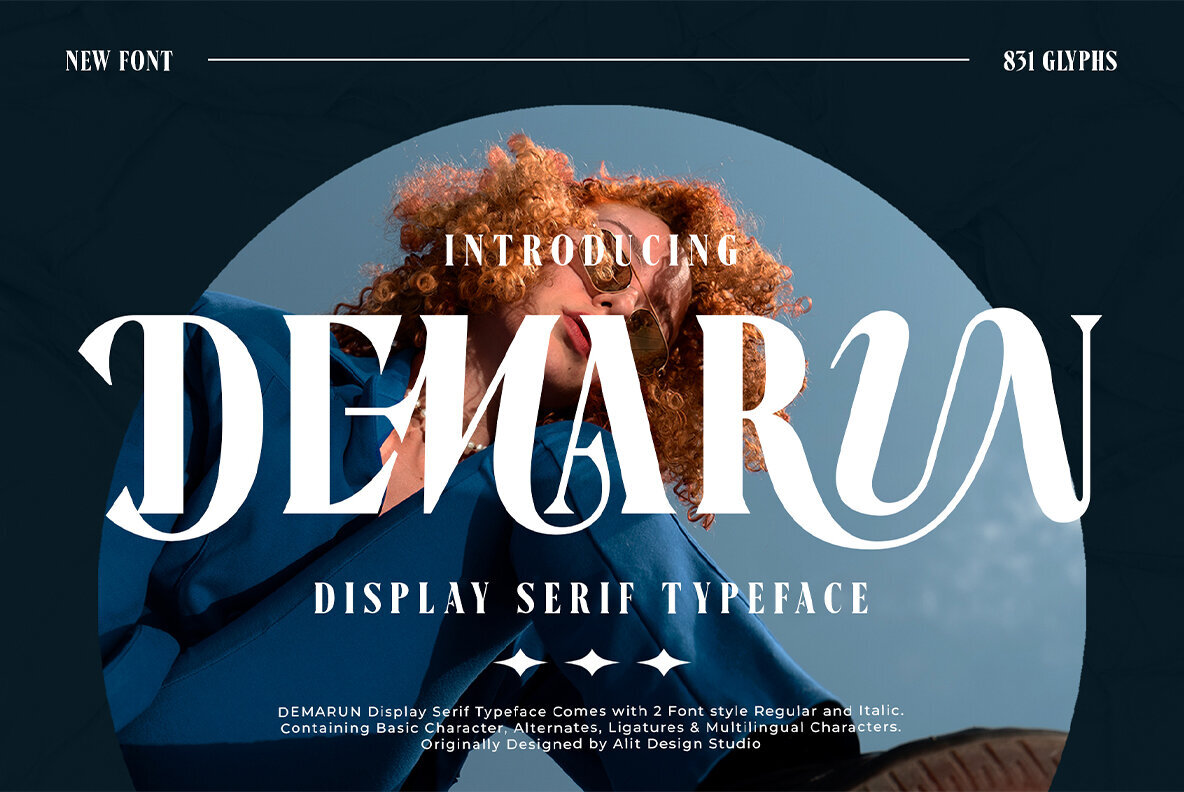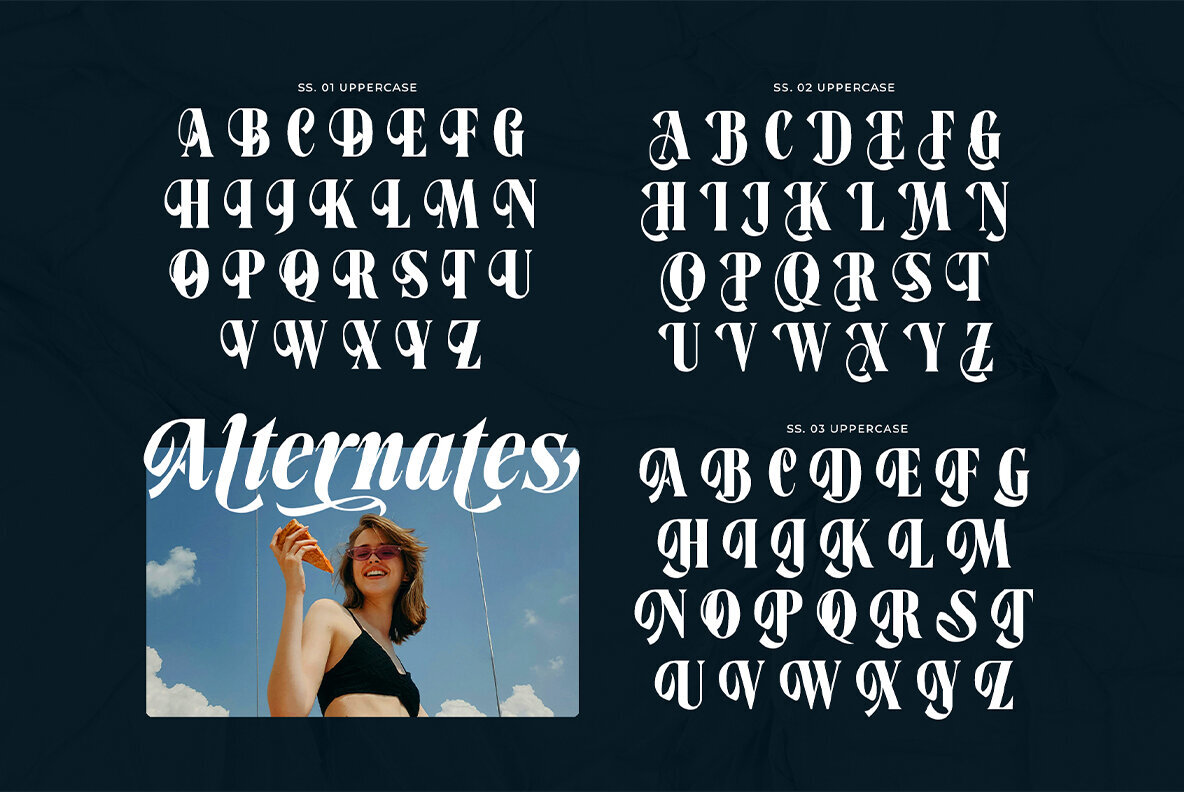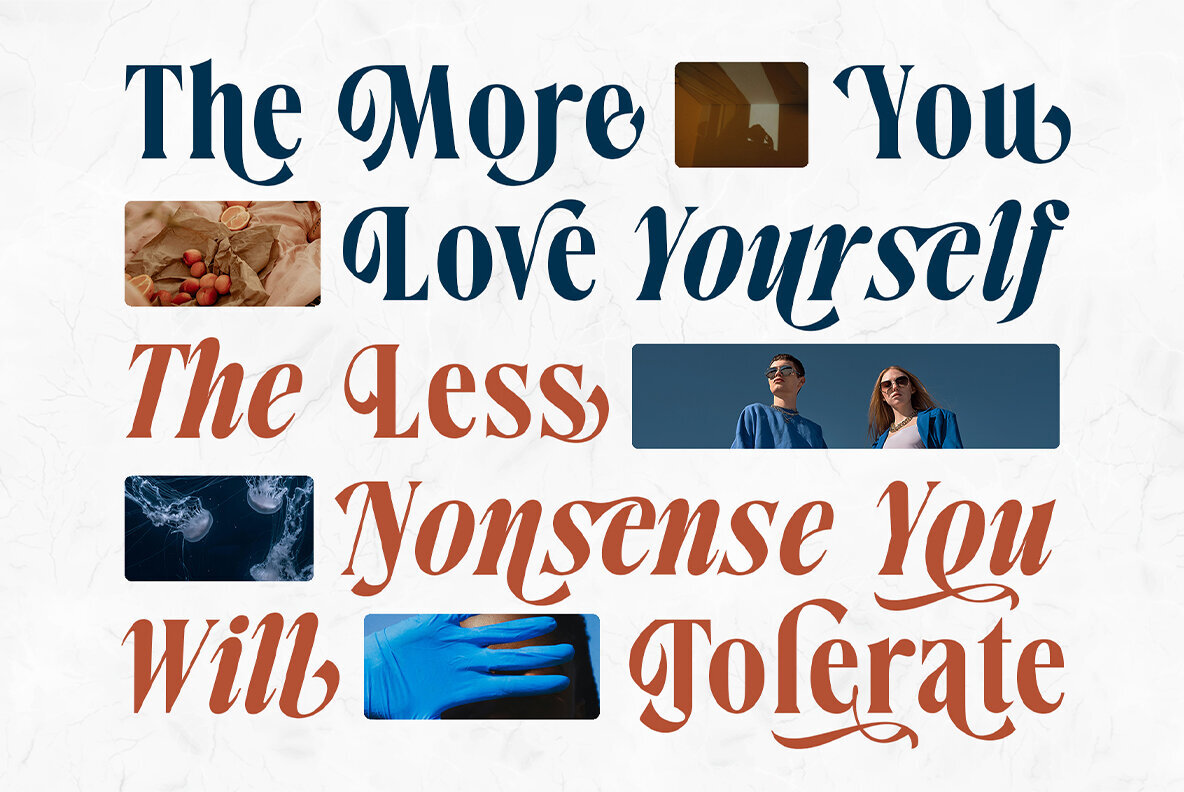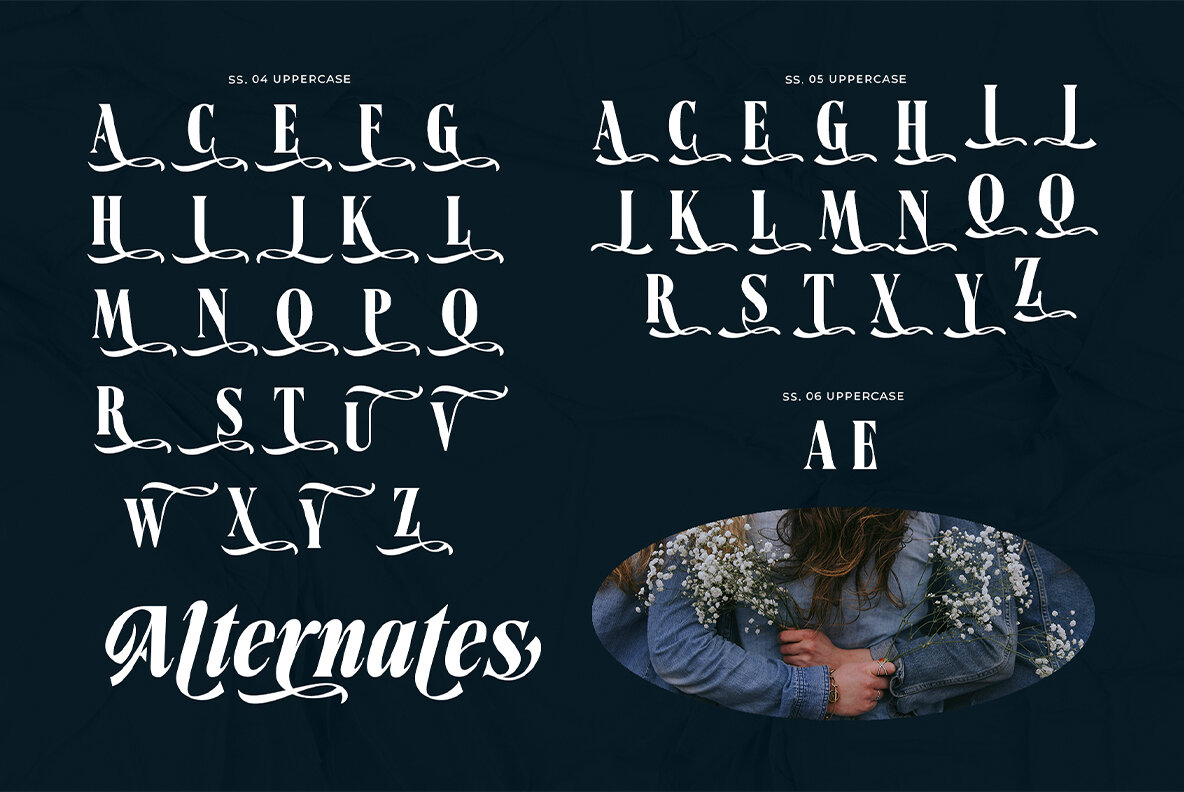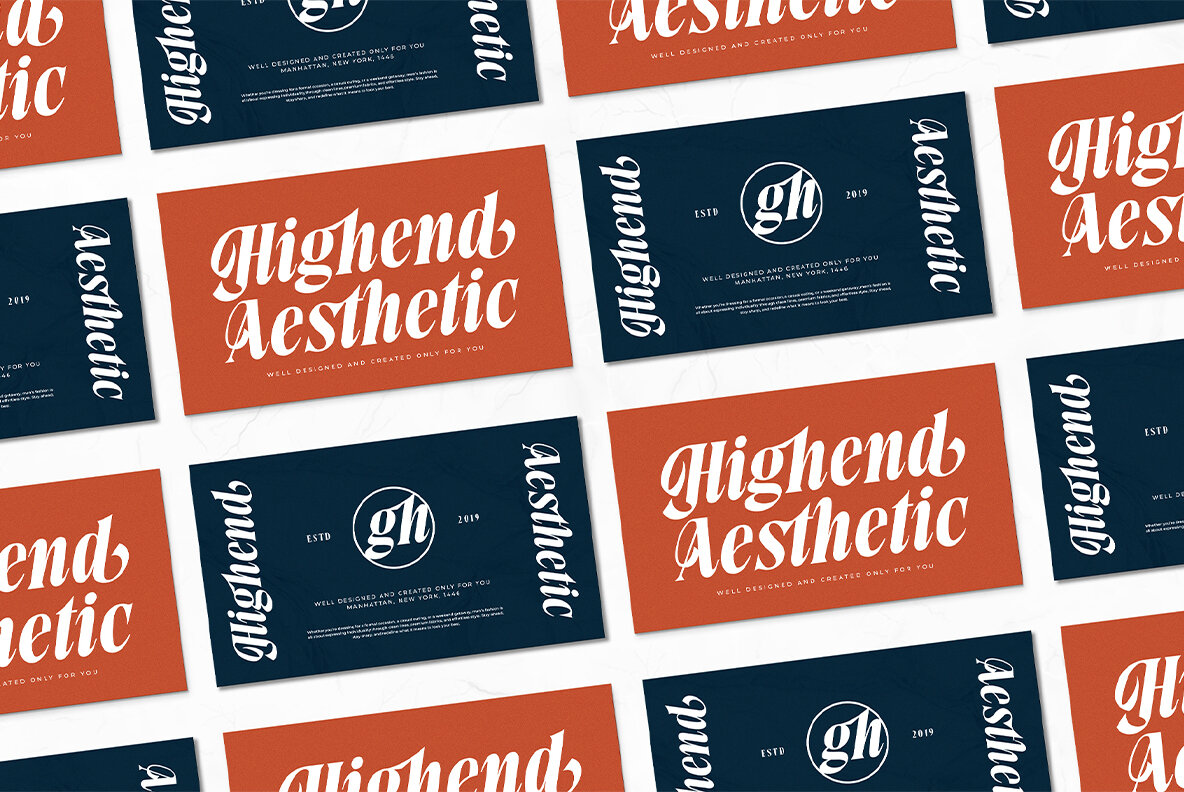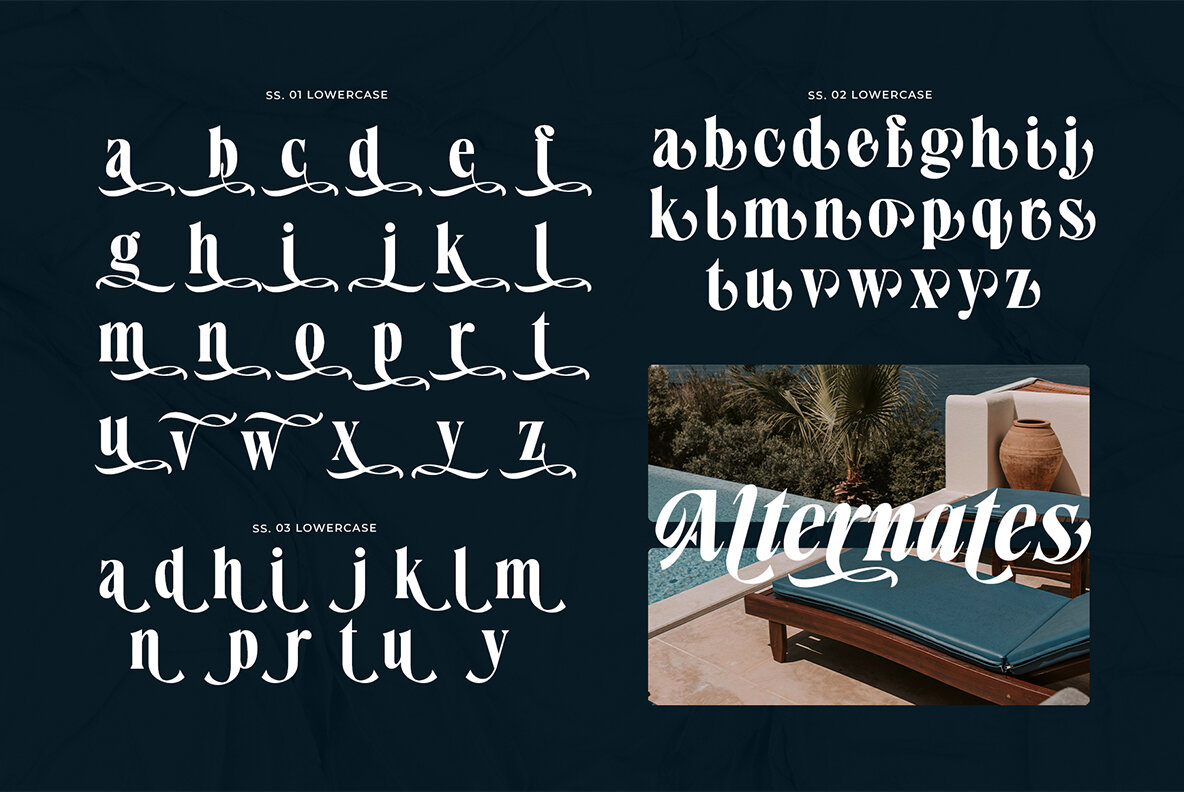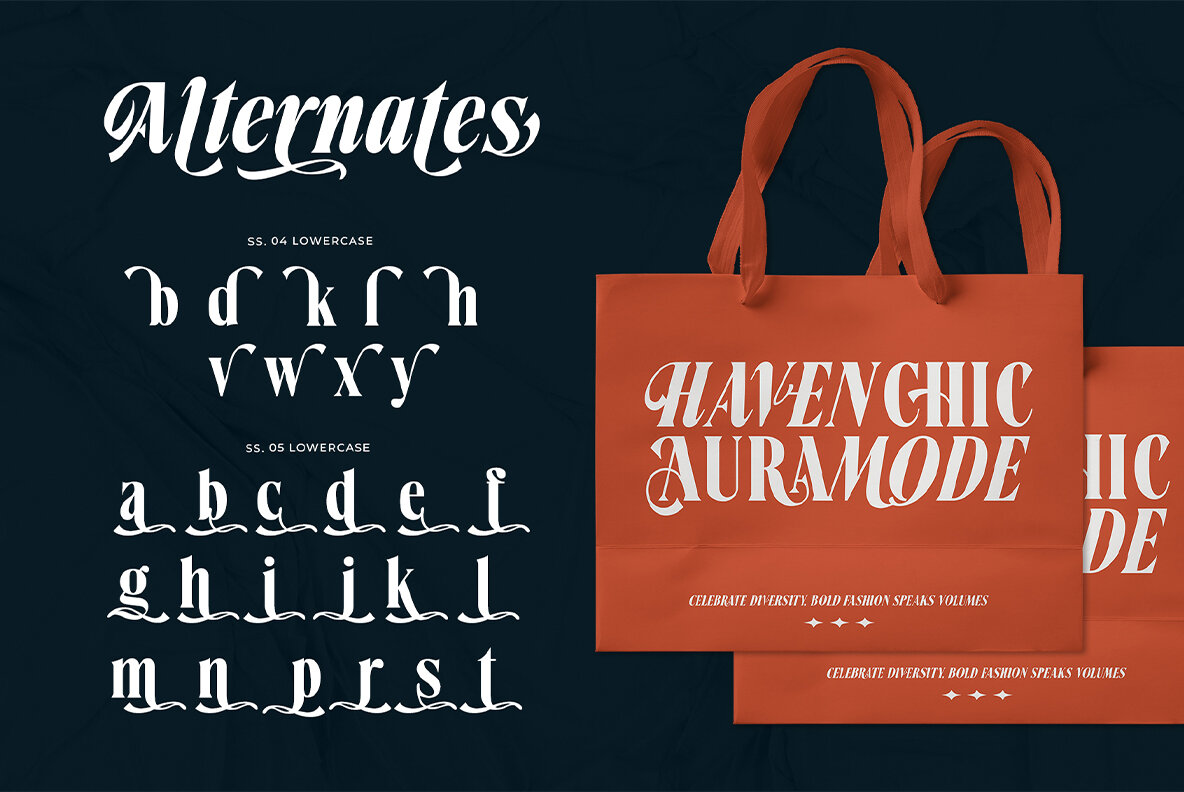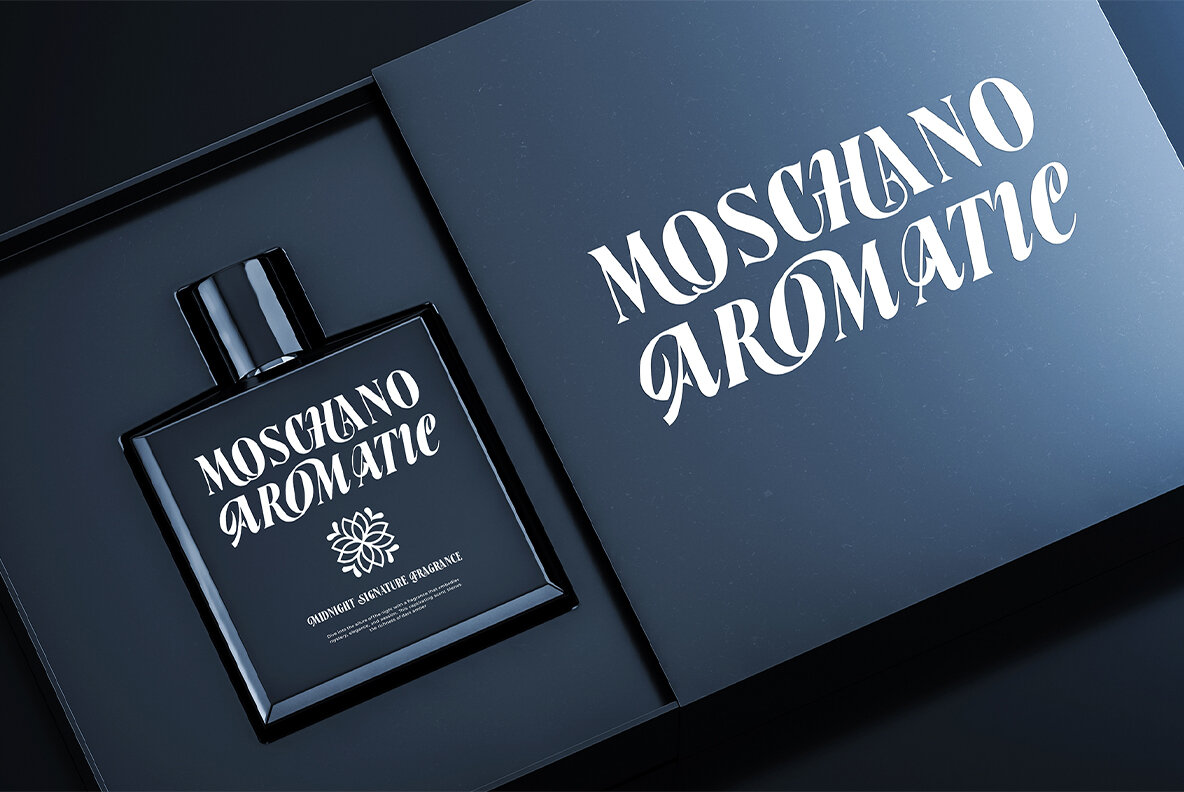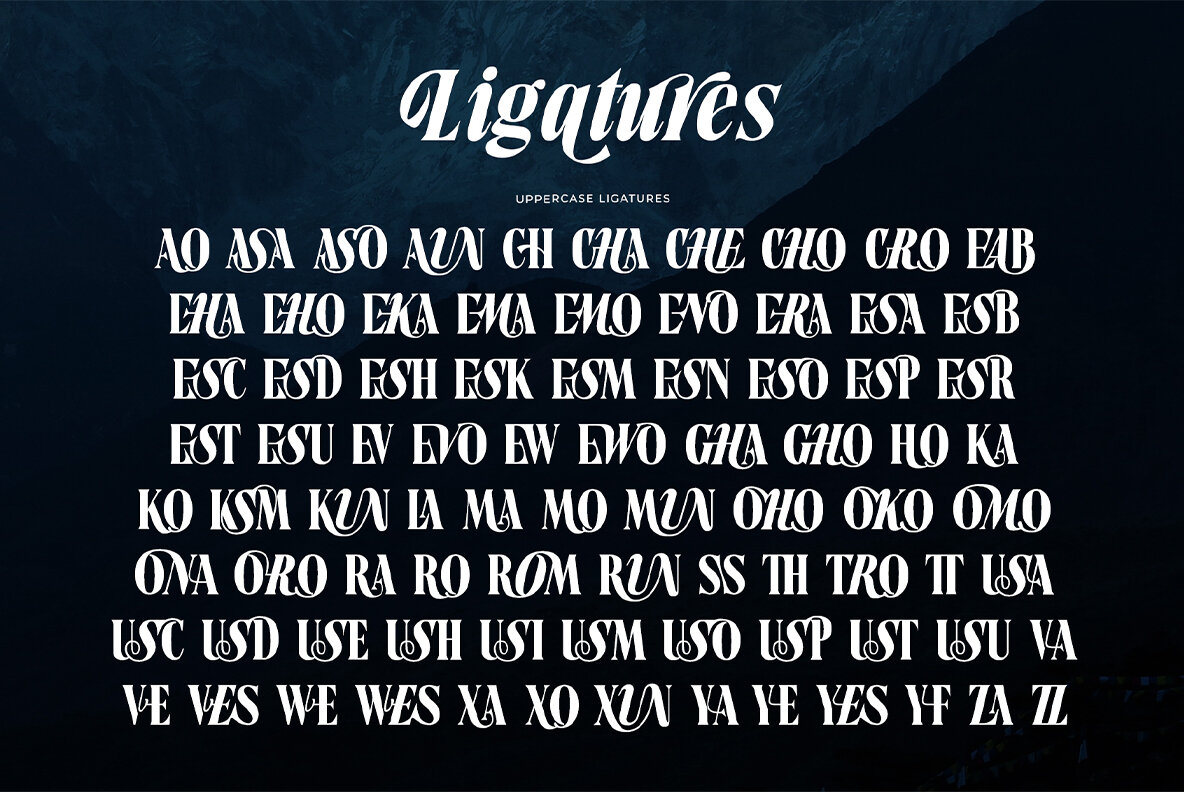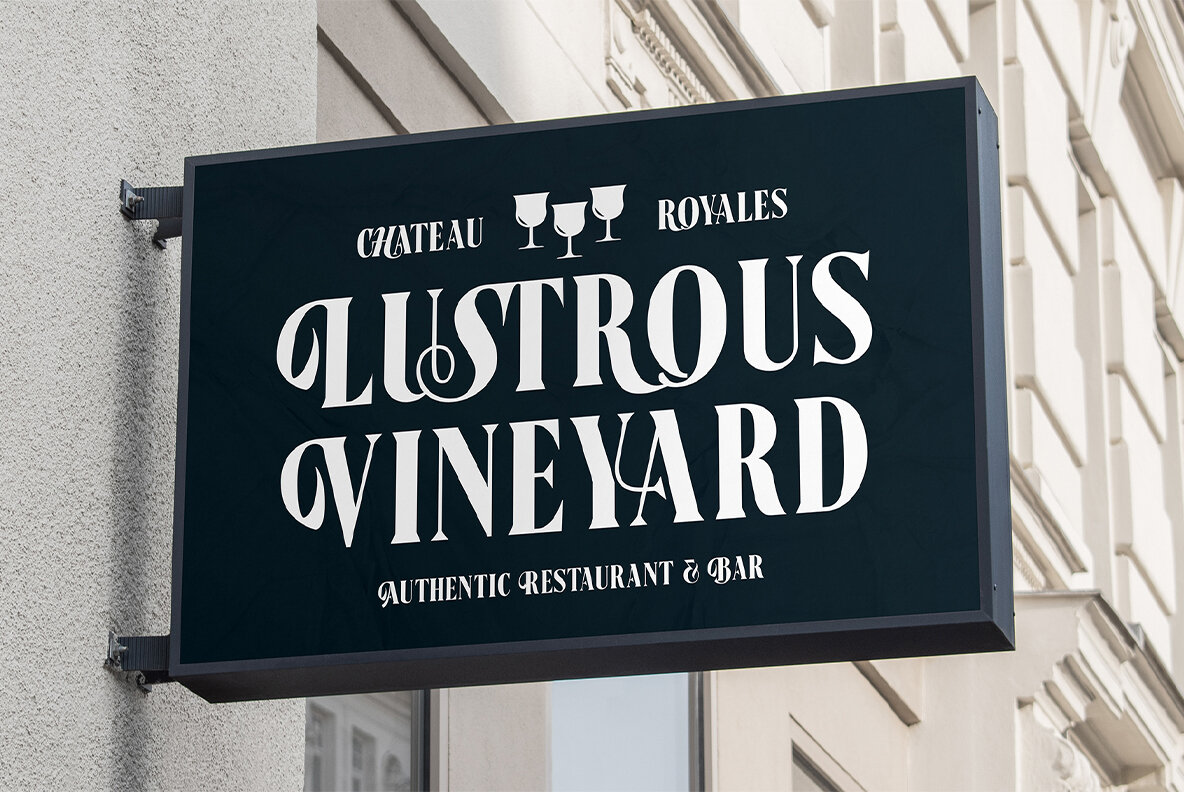
Demarun Font
Demarun Regular
Demarun Italic
Demarun is a bold and elegant serif typeface perfect for designers seeking to make a statement. Its luxurious appearance is ideal for branding, editorial design, and sophisticated advertising campaigns. With 831 glyphs, it accommodates a vast range of multilingual characters, alternates, and ligatures, offering versatile customization for any design project. Demarun effortlessly blends traditional serif charm with modern flair, combining sharp, dramatic lines and smooth curves. It's the choice for designers who desire an impactful yet refined aesthetic, offering both nostalgia and contemporary style.Demarun: A Striking Display Serif Typeface